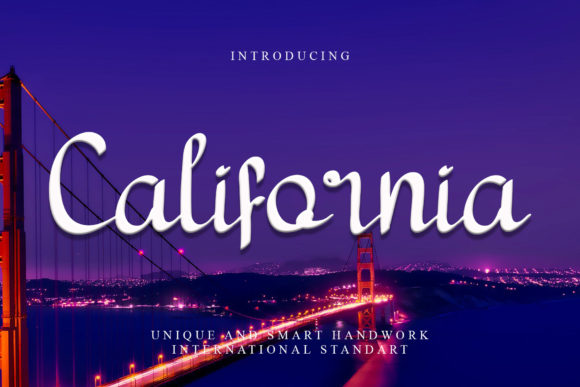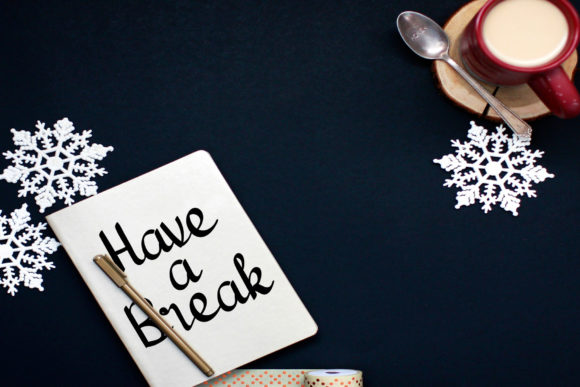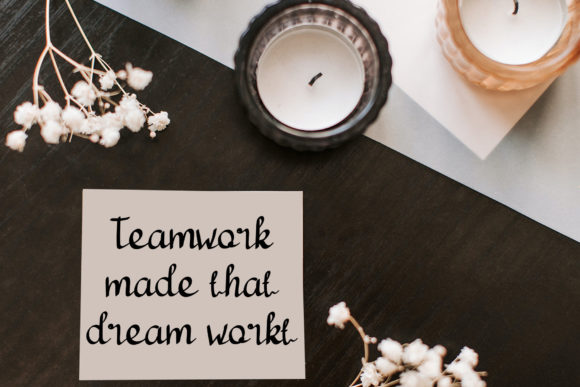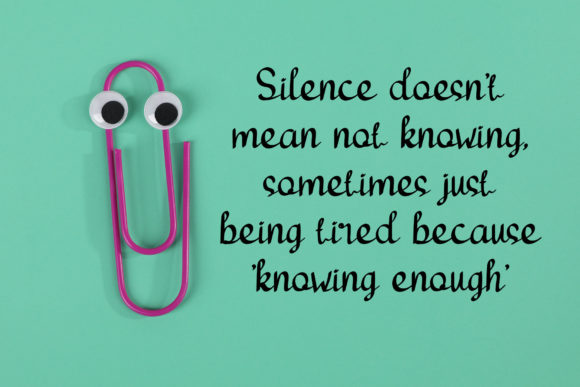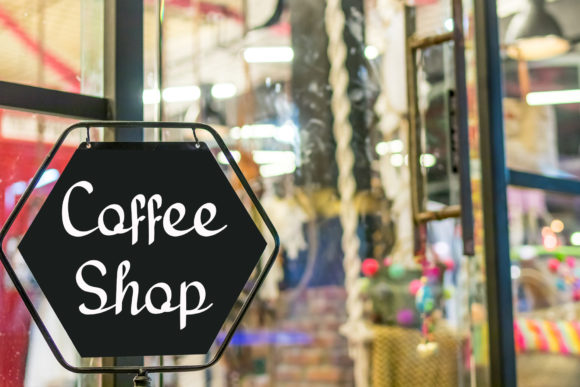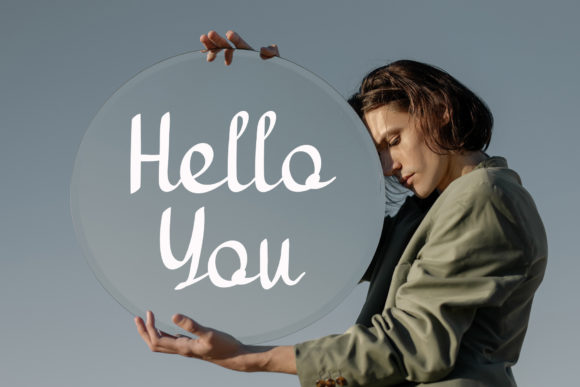
California Font
About California Font
California is a beautiful handwritten font. Clean and a little bit quirky, this font is the perfect fit for all of your logos, branding, social media, and crafty DIY projects.